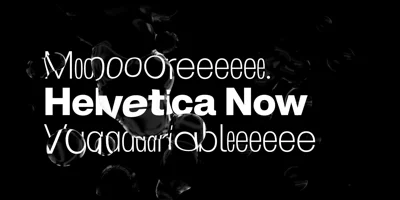
Helvetica Now Variable Font
Helvetica Now Variable Font is perfect for professional projects including corporate identity systems, international brand guidelines, modern website interfaces, global marketing campaigns, enterprise software applications, premium publication designs, architectural signage systems, and world-class design solutions. This legendary typeface brings timeless Swiss design and variable technology to any project.
What makes Helvetica Now Variable Font exciting is its masterful evolution of the world's most trusted typeface with cutting-edge variable font capabilities. The refined character design maintains Helvetica's iconic neutrality and universal appeal while adding infinite weight and width variations that provide unprecedented design flexibility. This font delivers the perfect fusion of proven reliability and modern innovation that design professionals worldwide depend on.
The Helvetica Now Variable Font family typically includes continuous weight ranges with optimized optical sizing, complete international character sets, numerals, punctuation, and comprehensive symbol libraries. The design incorporates advanced variable axes and OpenType features that enhance typographic control. Premium versions include extensive language support covering Latin, Cyrillic, and Greek scripts for global applications.
Whether you're designing for Fortune 500 companies, international organizations, or prestigious institutions, Helvetica Now Variable Font delivers the unmatched credibility that has defined professional typography for decades. Its variable technology makes it ideal for responsive brand systems and digital platforms that require absolute consistency across all applications. The font's legendary heritage ensures it communicates trustworthiness and excellence, making it perfect for any project requiring the authoritative aesthetic of Swiss typography and professional design standards.